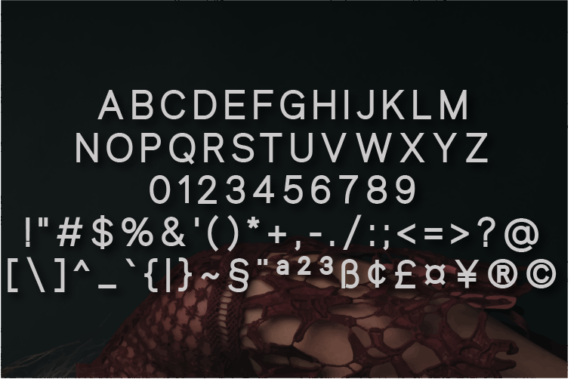
Introducing Colbey Black Font: Elevate Your Designs with Elegance and Sophistication
In the world of typography, fonts play a crucial role in conveying the tone and personality of a brand or design. For designers and crafters seeking a modern and refined aesthetic, Colbey Black font is an excellent choice. This elegant contemporary sans serif font boasts soft edges, clean lines, and a harmonious appearance, making it perfect for a wide range of applications, from branding and logos to web design and more.
What Makes Colbey Black Font Stand Out?
Colbey Black font is designed with a focus on clean and stylized geometry, resulting in a sophisticated and modern look. Its soft edges add a touch of warmth and approachability, setting it apart from other sans serif fonts. The font’s harmonious appearance ensures that it remains visually appealing, even in large blocks of text or when used for headlines.
Key Features of Colbey Black Font
- Elegant and Contemporary Design: Colbey Black font features a sleek and modern design, making it perfect for designers and crafters seeking a fresh and sophisticated look.
- Soft Edges: The font’s soft edges add a touch of warmth and approachability, making it ideal for designs that require a friendly and approachable tone.
- Clean and Stylized Geometry: The font’s clean lines and geometric shapes ensure a harmonious appearance, making it perfect for both texts and headlines.
- Versatile: Colbey Black font is suitable for a wide range of applications, including branding, logos, web design, and more.
Use Cases for Colbey Black Font
Colbey Black font is an incredibly versatile font that can be used in various design projects. Here are some use cases:
- Branding: Use Colbey Black font to create a sophisticated and modern brand identity that stands out from the competition.
- Logos: The font’s clean lines and elegant design make it perfect for creating logos that require a professional and refined look.
- Web Design: Colbey Black font is optimized for web use, making it an excellent choice for websites, blogs, and online applications.
- Print Design: The font’s harmonious appearance ensures that it remains visually appealing in print, making it suitable for brochures, flyers, and other print materials.
Tips for Using Colbey Black Font Effectively
To get the most out of Colbey Black font, here are some tips:
- Pair it with Other Fonts: Experiment with pairing Colbey Black font with other fonts to create a unique and visually appealing typography.
- Use it for Headlines and Titles: The font’s elegant design makes it perfect for headlines and titles, adding a touch of sophistication to your designs.
- Adjust Font Size and Color: Experiment with different font sizes and colors to create visual hierarchy and add emphasis to your designs.
Colbey Black font is an excellent choice for designers and crafters seeking a modern and refined aesthetic. Its elegant design, soft edges, and harmonious appearance make it perfect for a wide range of applications. By incorporating Colbey Black font into your designs, you can elevate your typography and create visually appealing designs that stand out from the competition.
Whether you’re working on a branding project, designing a logo, or creating a website, Colbey Black font is an excellent choice. Its versatility and sophistication ensure that it will remain a valuable addition to your design toolkit.